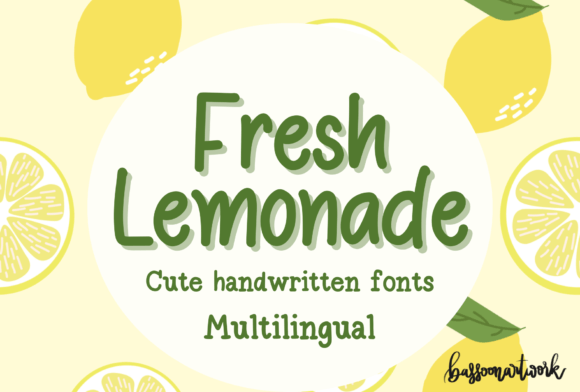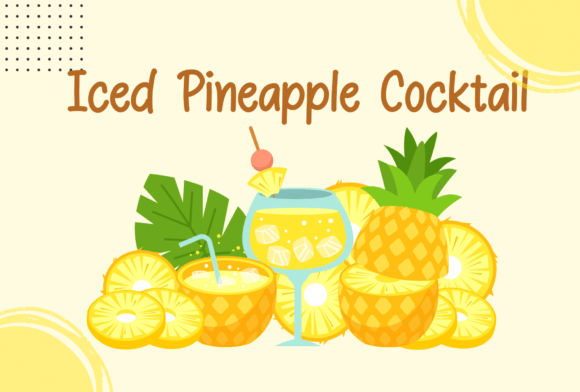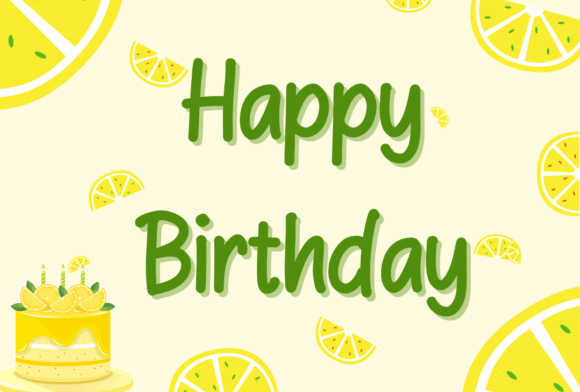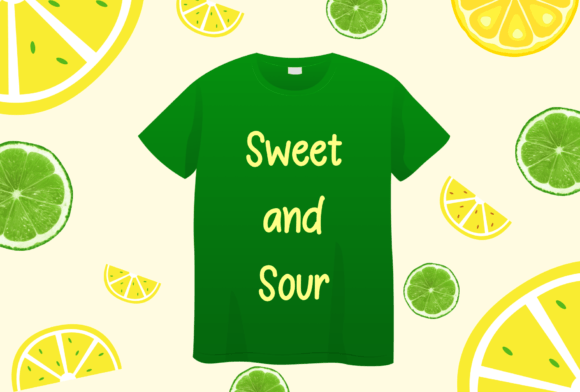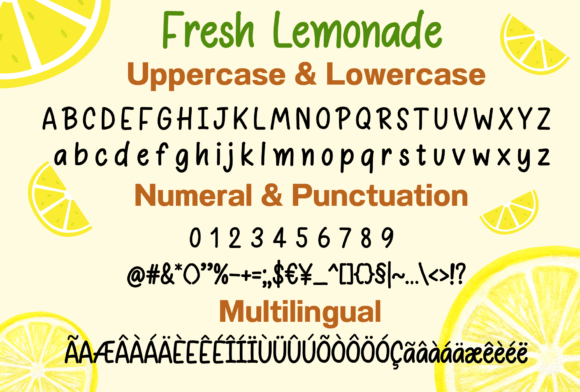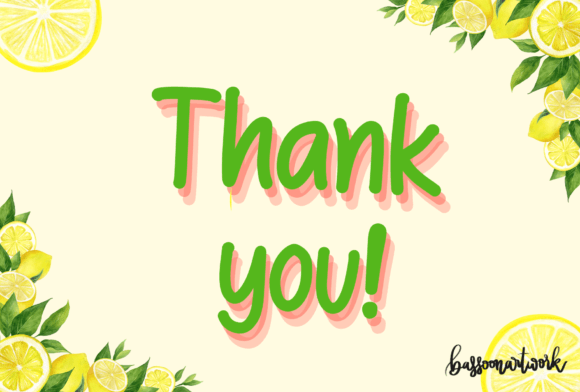
The Perfect Recipe for Designers: Fresh Lemonade Font
Have you ever been brainstorming ideas for a new project, sipping on a glass of fresh lemonade, and suddenly, a burst of creativity strikes? For designers, those ‘aha’ moments are the best – and we’re about to serve up a refreshing solution that’s sure to inspire your next project.
Introducing the Fresh Lemonade Font, a charming handwritten font that’s perfect for adding a touch of whimsy and fun to your designs. Whether you’re crafting a cocktail menu, a birthday card, or a presentation, this font is sure to bring a smile to your audience’s faces. As a designer, you know that the right font can make all the difference in setting the tone and style of your project – and that’s exactly what the Fresh Lemonade Font offers.
Fresh Lemonade Font Key Features
- Font Family: Fresh Lemonade is a custom-designed font family with 4 styles: Regular, Italic, Bold, and Bold Italic.
- Character Count: The font family includes 256 characters, including uppercase and lowercase letters, numerals, punctuation, and special characters.
- Unique Characteristics: Features a unique, hand-drawn style with subtle texture and imperfections, giving it a warm and inviting feel.
Designer Review: Fresh Lemonade Font
Overall, I’d say the Fresh Lemonade Font has some great qualities that make it a fun and refreshing choice for certain projects.
- ✨ The playful, handwritten feel is perfect for adding a touch of whimsy to labels, signage, or other informal designs.
- ✨ The font’s rounded edges and friendly curves make it easy to read and engaging for the viewer.
- ✨ The font family includes a range of weights and styles, allowing for some flexibility in terms of layout and emphasis.
- ⚠️ The font may not be suitable for more formal or professional projects, as its casual feel can come across as unpolished or immature.
- ⚠️ The font’s lack of legibility at smaller sizes can make it difficult to read in certain contexts, such as in body text or headlines.
Overall, I think the Fresh Lemonade Font is a great choice for projects where a lighthearted, approachable feel is desired. While it may not be suitable for every project, its unique personality and flexibility make it a fun and useful addition to any designer’s toolkit.
Tips for getting the most out of Fresh Lemonade Font in Canva include:
- Use the font in combination with bright and pastel colors to create a playful and eye-catching design.
- Experiment with different font sizes and styles to add visual interest to your design.
Tips for getting the most out of Fresh Lemonade Font in Adobe Photoshop or Illustrator include:
- Use the font in combination with bold lines and bright colors to create a fun and playful design.
- Experiment with different font sizes and styles to add texture and depth to your design.
Alternatives to “Fresh Lemonade Font” for Designers
When searching for a font that captures a similar essence to “Fresh Lemonade Font”, consider the following alternatives:
Great Vibes Font is a beautiful, handwritten font that is perfect for creating a welcoming and playful atmosphere. It is ideal for use in branding, packaging, and advertisements where a fun and carefree tone is desired. Great Vibes Font is similar to Fresh Lemonade Font in its cursive style, but it has a more elegant and refined feel.
Alex Brush Font is a luxurious and elegant script font that is perfect for creating a sophisticated and high-end atmosphere. It is ideal for use in branding, invitations, and other materials where a touch of luxury is desired. Alex Brush Font is similar to Fresh Lemonade Font in its cursive style, but it has a more refined and polished feel.